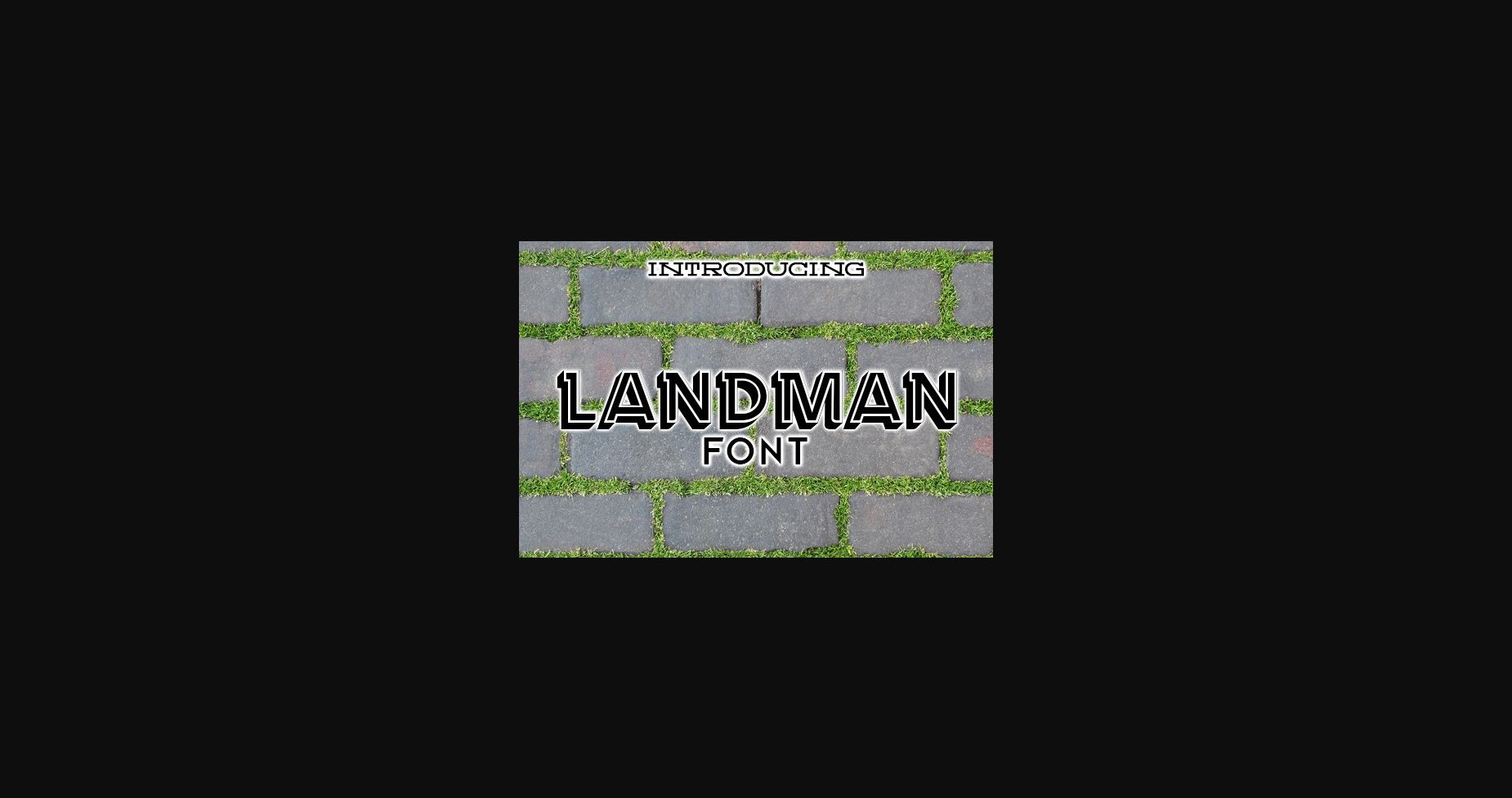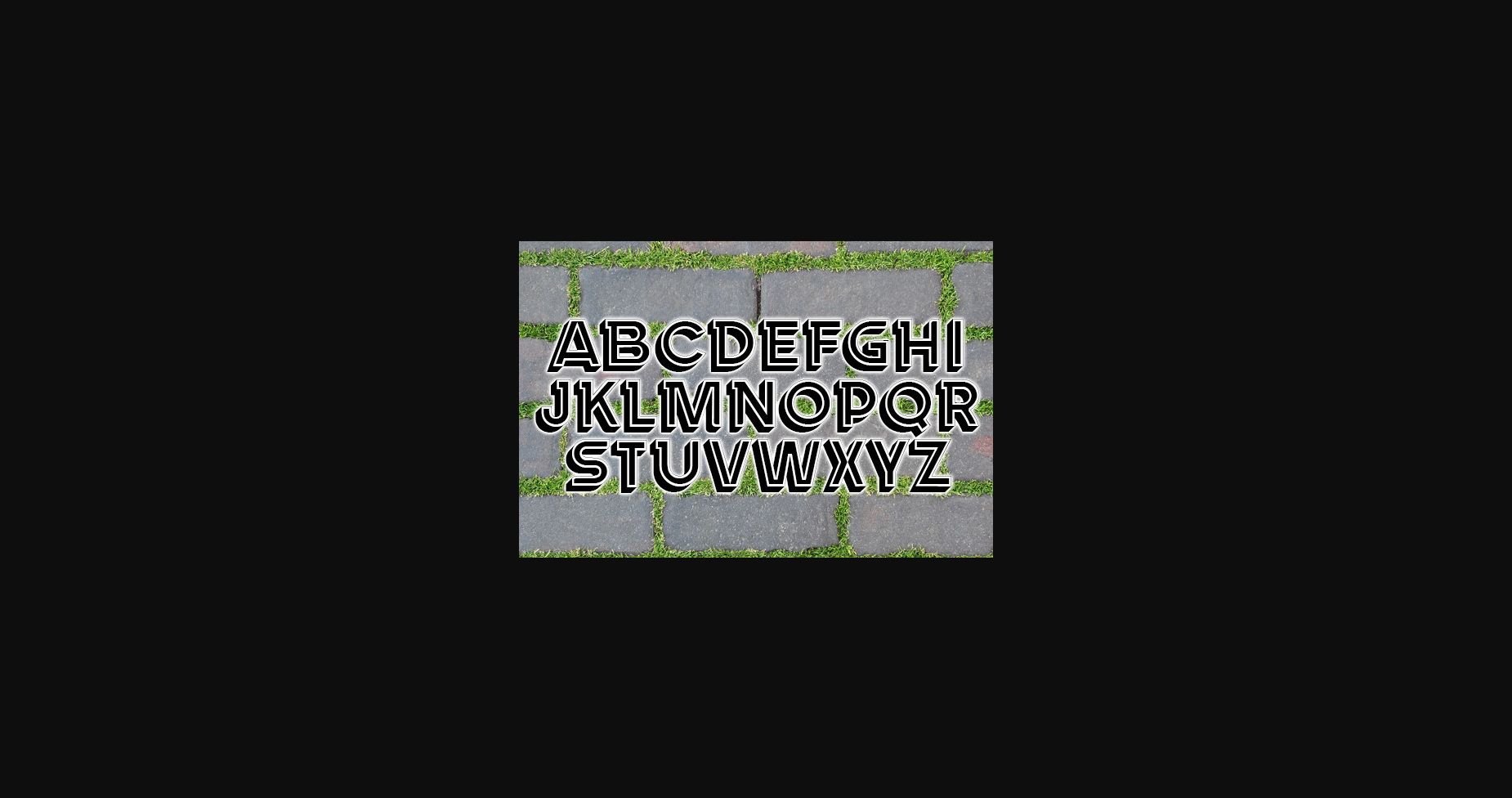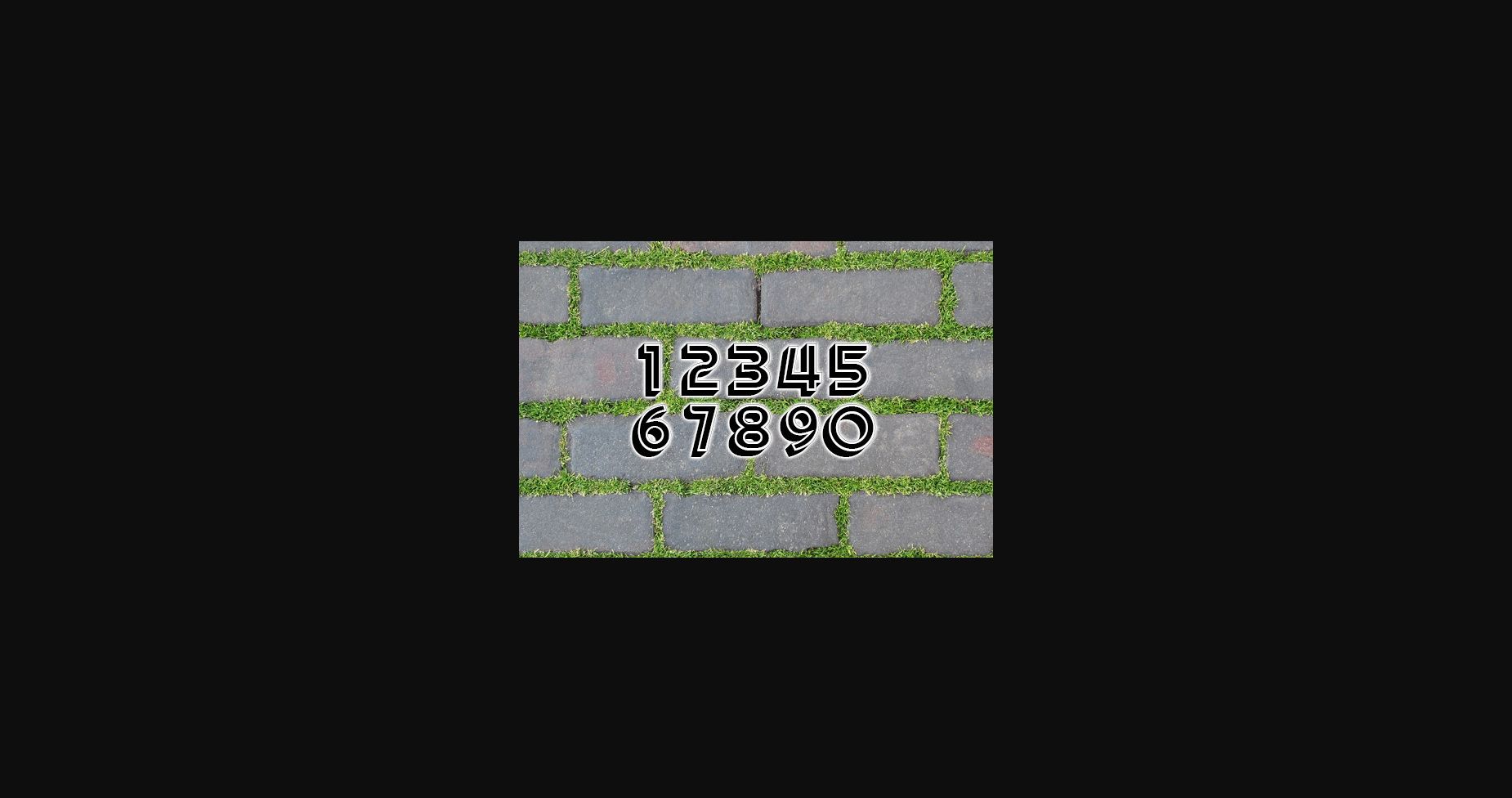
About Landman Font
Landman is stylish sans serif typeface that will make your designs look stunning and cool.
Use this font on posters, flyers and shirts.